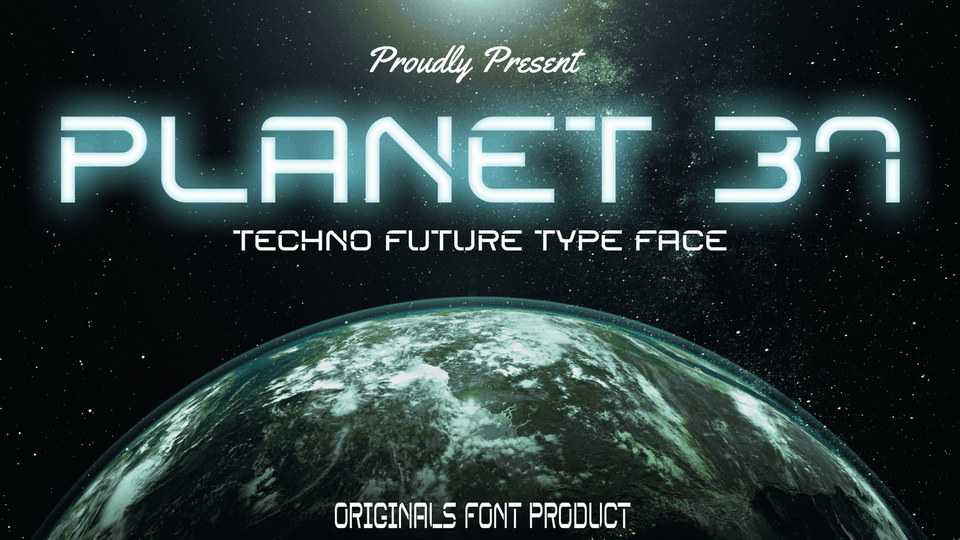
Download Planet 37 font, a future techno typeface. Planet 37 will bring bright and modern technology to your designs, future and science segmented magazines, posters, movie titles and more.